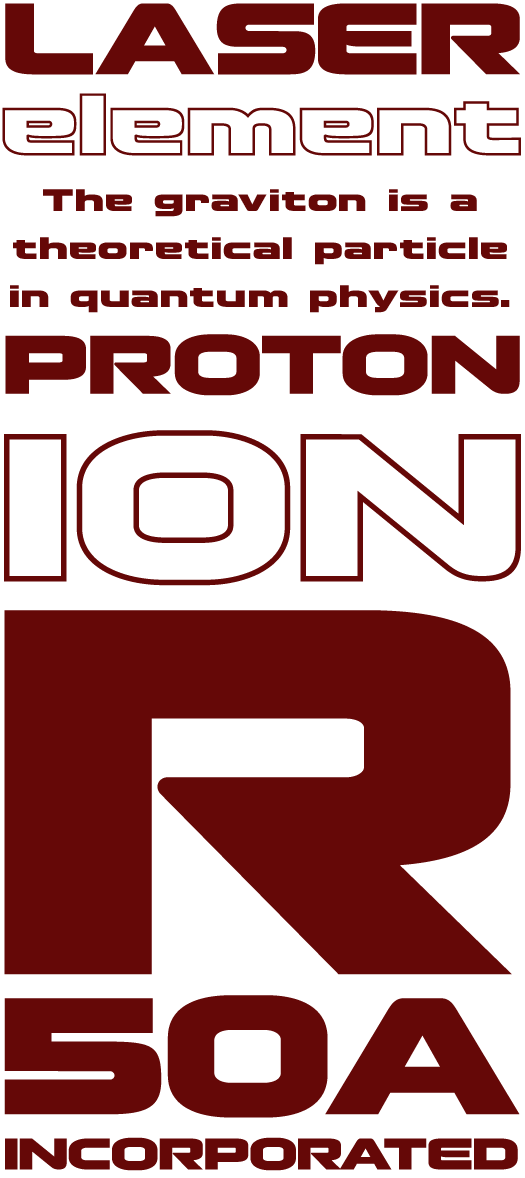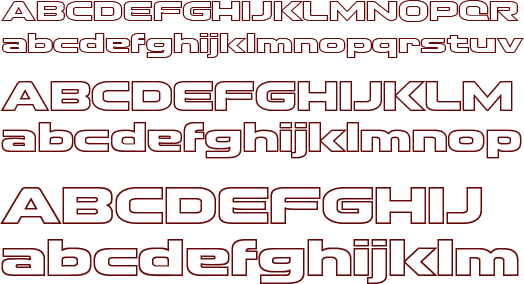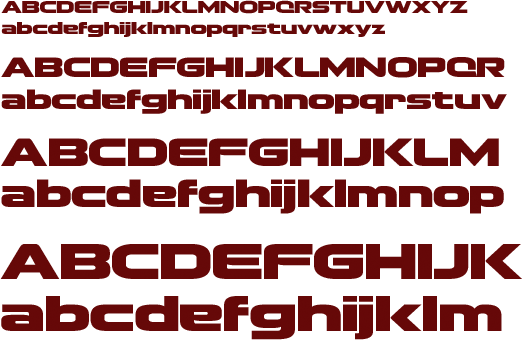
Graviton™ by David Occhino
A a modern-style sans serif font with a sci-fi flair.
Character Set
Graviton has a set of 240 glyphs.
• Latin A-Z, a-z • Complete punctuation • International characters • Mathematical symbols
Samples
• Graviton Regular
• Graviton Outline
Additional Samples
• The following type specimens use both styles of the Graviton typeface family.